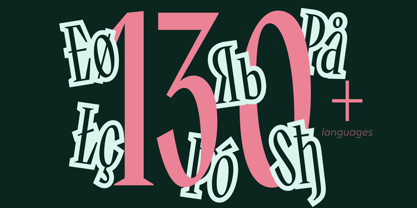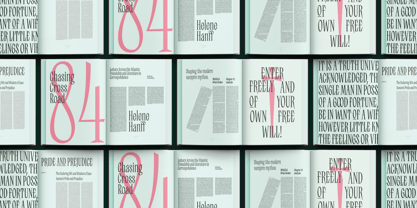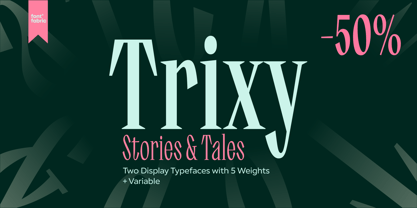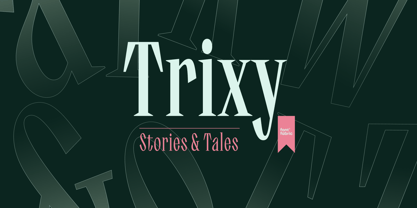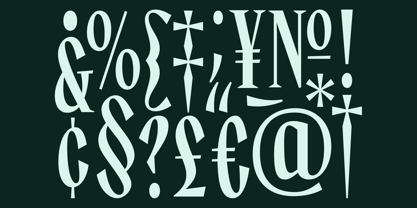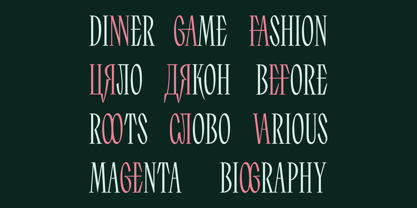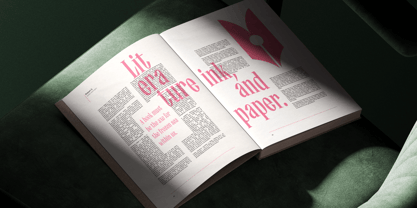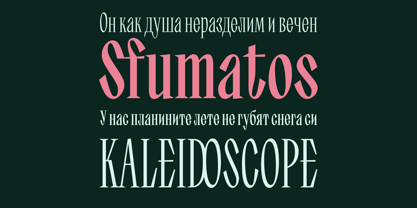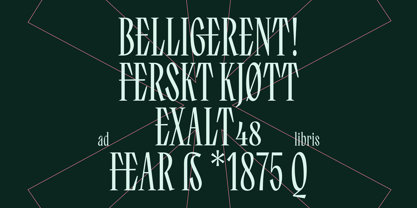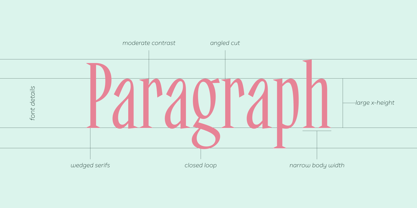
Trixy
Die Schriftfamilie Trixy wurde von Vika Usmanova, Ivelina Martinova entworfen und von Fontfabric veröffentlicht. Trixy enthält 12 Stile und Familienpaketoptionen. Mehr über diese Familie
Trixy is a condensed serif typeface inspired by the bold, experimental Cyrillic lettering found on Soviet-era book covers of the mid-20th century. Starting from Cyrillic and later expanded into Latin, Trixy combines narrow proportions, sharp serifs, and high contrast with a dynamic, retro character. The family comes in two styles — Trixy Stories and Trixy Tales — each offering five weights from Light to Bold. Stories delivers a refined, expressive tone with a rich set of ligatures and stylistic alternates, while Tales pushes the expression further with sharper details and elongated swash-like legs. Whether used for packaging, book covers, editorial headlines, posters, or digital graphics, Trixy brings a striking, contemporary energy with a nod to vintage design heritage. Trixy is a condensed serif typeface designed for expressive display typography. Its bold contrast, vertical serifs, and eccentric details make it perfect for designers who want to make a statement. Whether you're creating editorial layouts, book covers, packaging, or branding, Trixy ensures your work stands out with confidence and personality. With 10 styles, advanced OpenType features, and multilingual support, Trixy offers both creative freedom and professional precision. Elevate your designs with the sharp, elegant look of Trixy today!